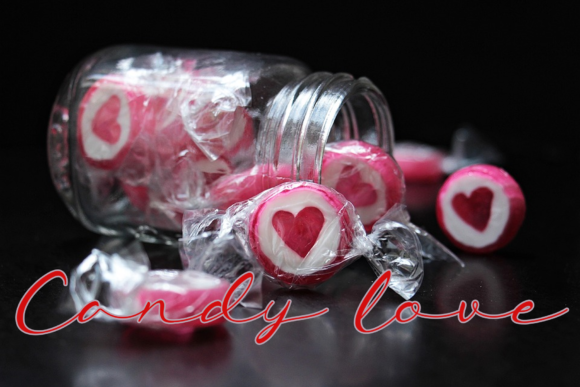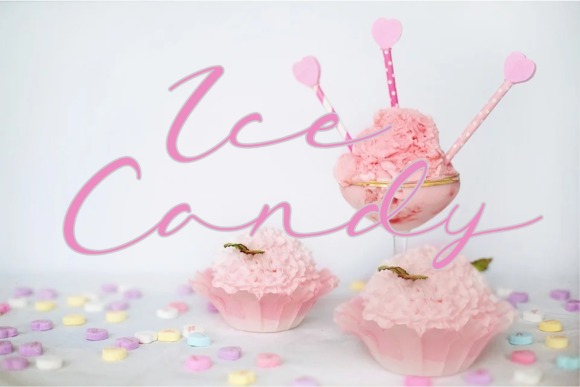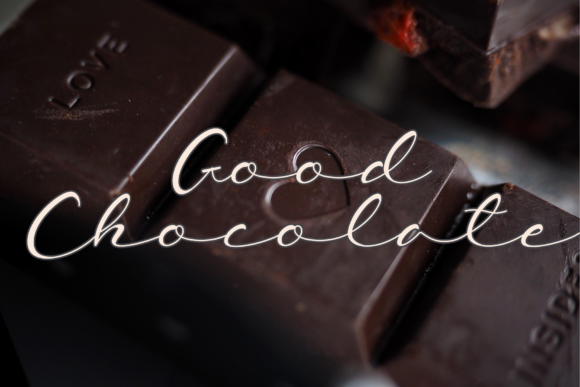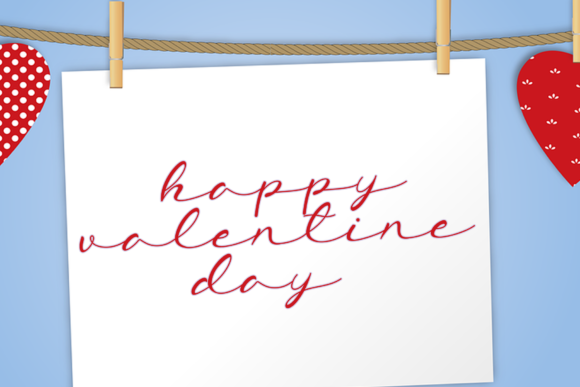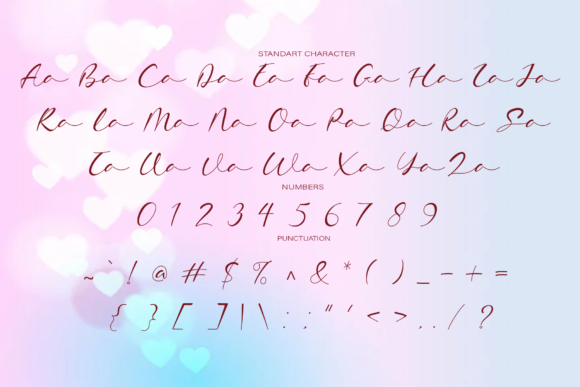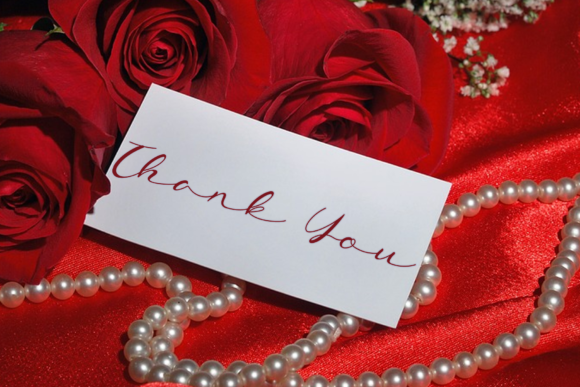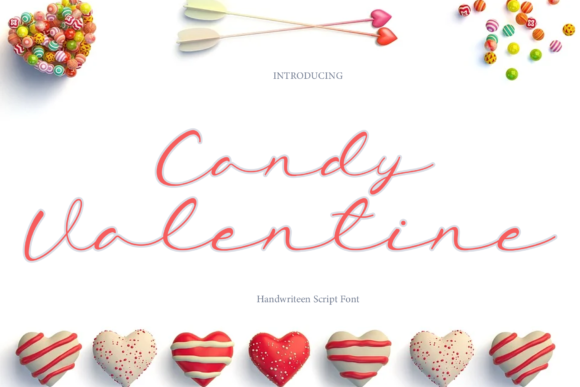
Candy Valentine Font: The Sweetest Addition to Your Design Collection
Are you a designer or crafter looking for a font that exudes sweetness and romance? Look no further than the Candy Valentine Font! This beautiful, handwritten font is perfect for adding a touch of whimsy and elegance to your designs. In this article, we’ll dive into the details of the Candy Valentine Font, its features, and how you can use it to take your designs to the next level.
What is Candy Valentine Font?
Candy Valentine is a sweet and delicate handwritten font, designed to bring a touch of romance and joy to your designs. Its dainty and joyful nature makes it ideal for writing wedding invitations, cards, or any other design that may need a romantic, personalized touch. The font’s elegant and cursive style is reminiscent of traditional calligraphy, but with a modern twist that makes it perfect for contemporary designs.
Key Features of Candy Valentine Font
- Handwritten style: The Candy Valentine Font has a beautiful, handwritten style that gives it a personal and unique touch.
- Delicate and dainty: The font’s delicate and dainty nature makes it perfect for designs that require a touch of elegance and sophistication.
- Romantic and joyful: The font’s romantic and joyful vibe makes it ideal for wedding invitations, anniversary cards, and other designs that require a touch of whimsy.
- Easy to read: Despite its delicate nature, the Candy Valentine Font is easy to read, making it perfect for body text and headlines.
Uses of Candy Valentine Font
The Candy Valentine Font is versatile and can be used for a variety of design projects, including:
- Wedding invitations: The font’s romantic and elegant style makes it perfect for wedding invitations, save-the-date cards, and other wedding-related designs.
- Greeting cards: The font’s joyful and whimsical nature makes it ideal for greeting cards, including Valentine’s Day, birthday, and anniversary cards.
- Stationery: The font’s elegant style makes it perfect for designing stationery, including letterheads, journals, and planners.
- Digital designs: The font’s versatility makes it suitable for digital designs, including social media graphics, blog posts, and website headers.
Tips for Using Candy Valentine Font
To get the most out of the Candy Valentine Font, here are some tips to keep in mind:
- Pair it with a bold font: Pair the Candy Valentine Font with a bold font to create contrast and add visual interest to your design.
- Use it for headlines and titles: The font’s elegant style makes it perfect for headlines and titles, where it can add a touch of sophistication and elegance.
- Experiment with colors: The font’s delicate nature makes it perfect for pastel colors, but feel free to experiment with other colors to find the perfect combination for your design.
The Candy Valentine Font is a beautiful and versatile font that can add a touch of romance and whimsy to your designs. Its delicate and dainty nature makes it perfect for wedding invitations, greeting cards, and other designs that require a touch of elegance and sophistication. With its easy-to-read style and joyful vibe, this font is sure to become a favorite in your design collection.